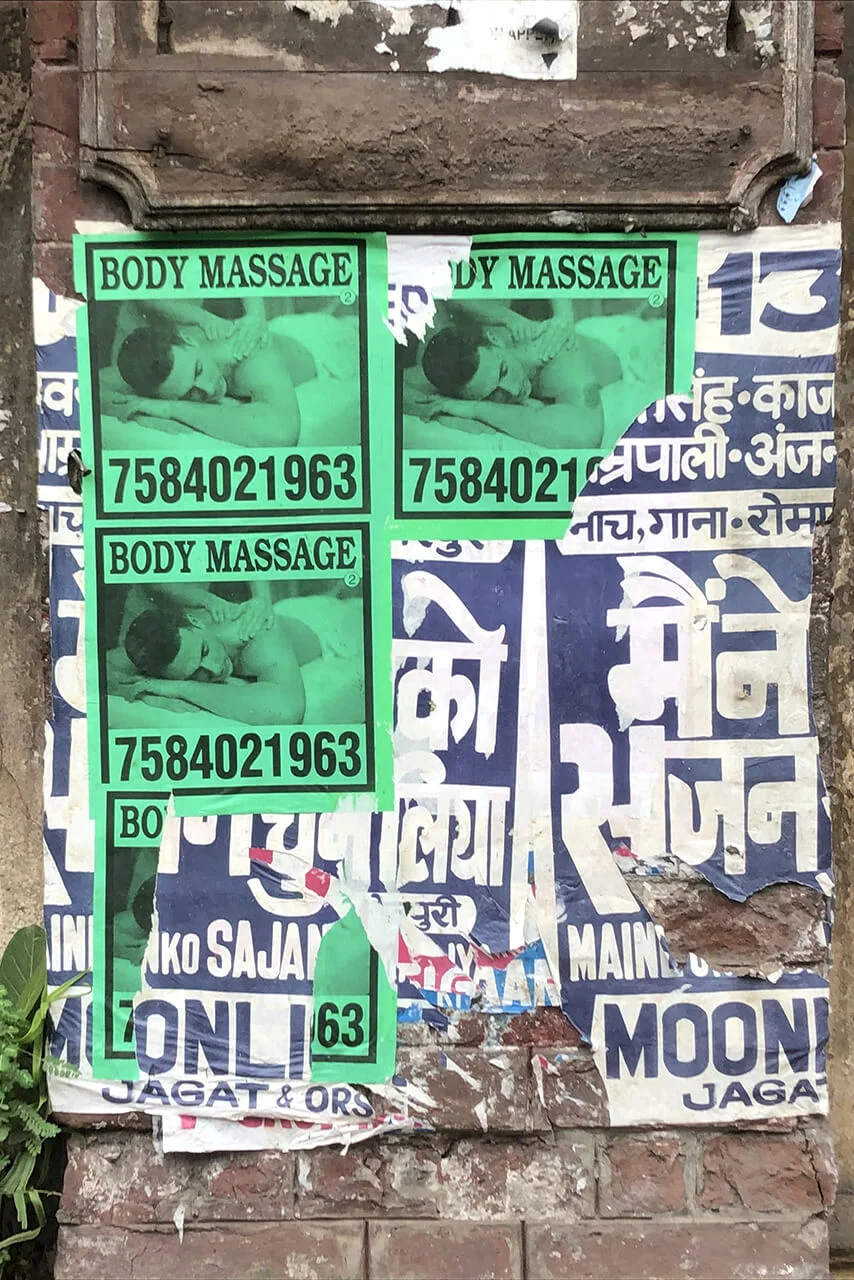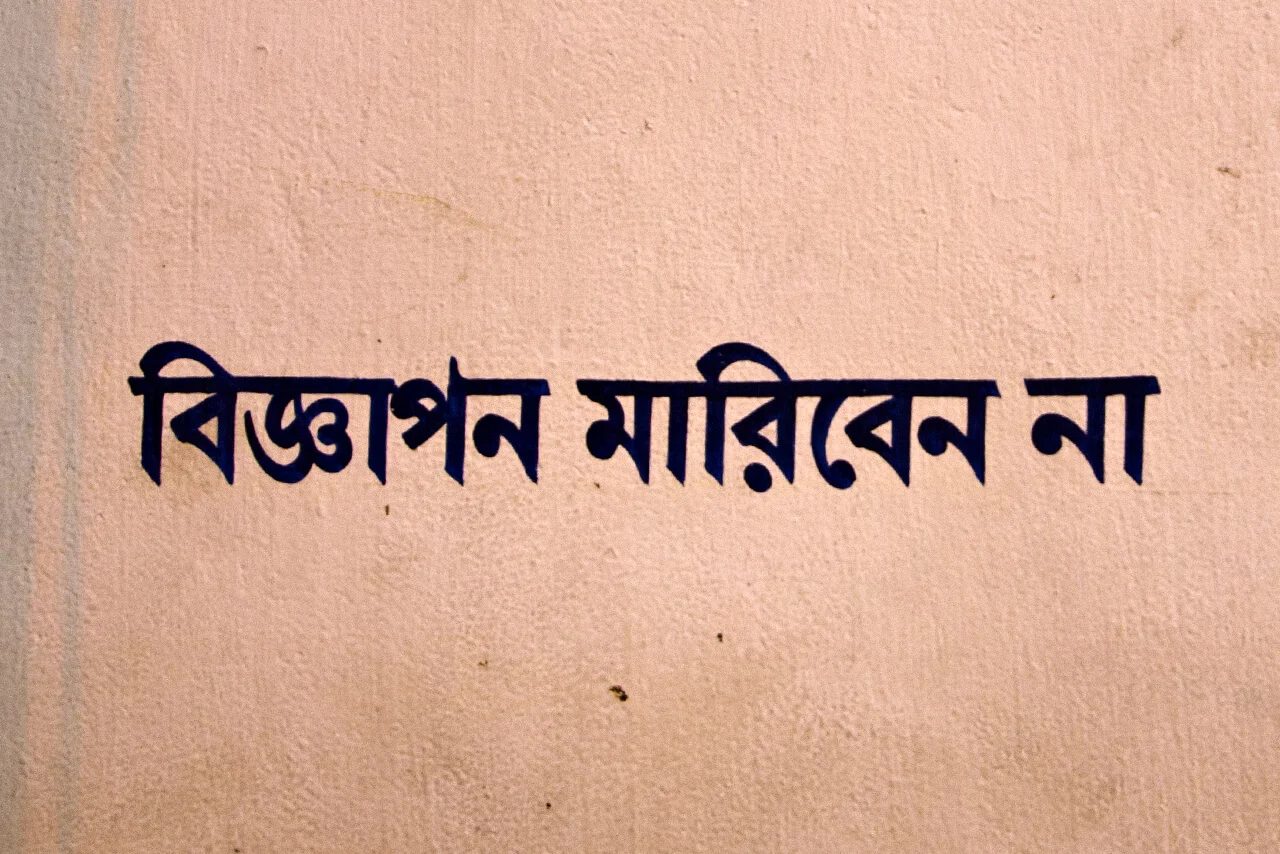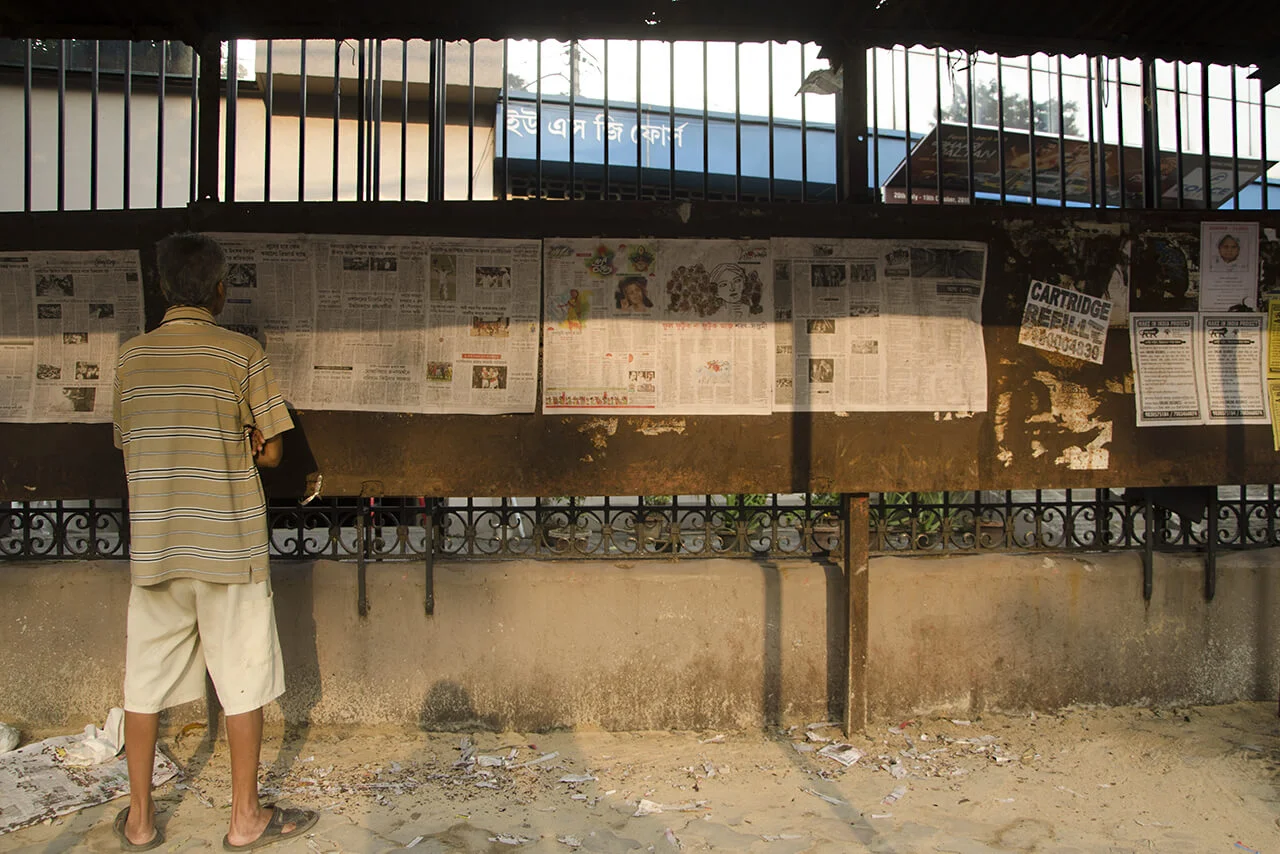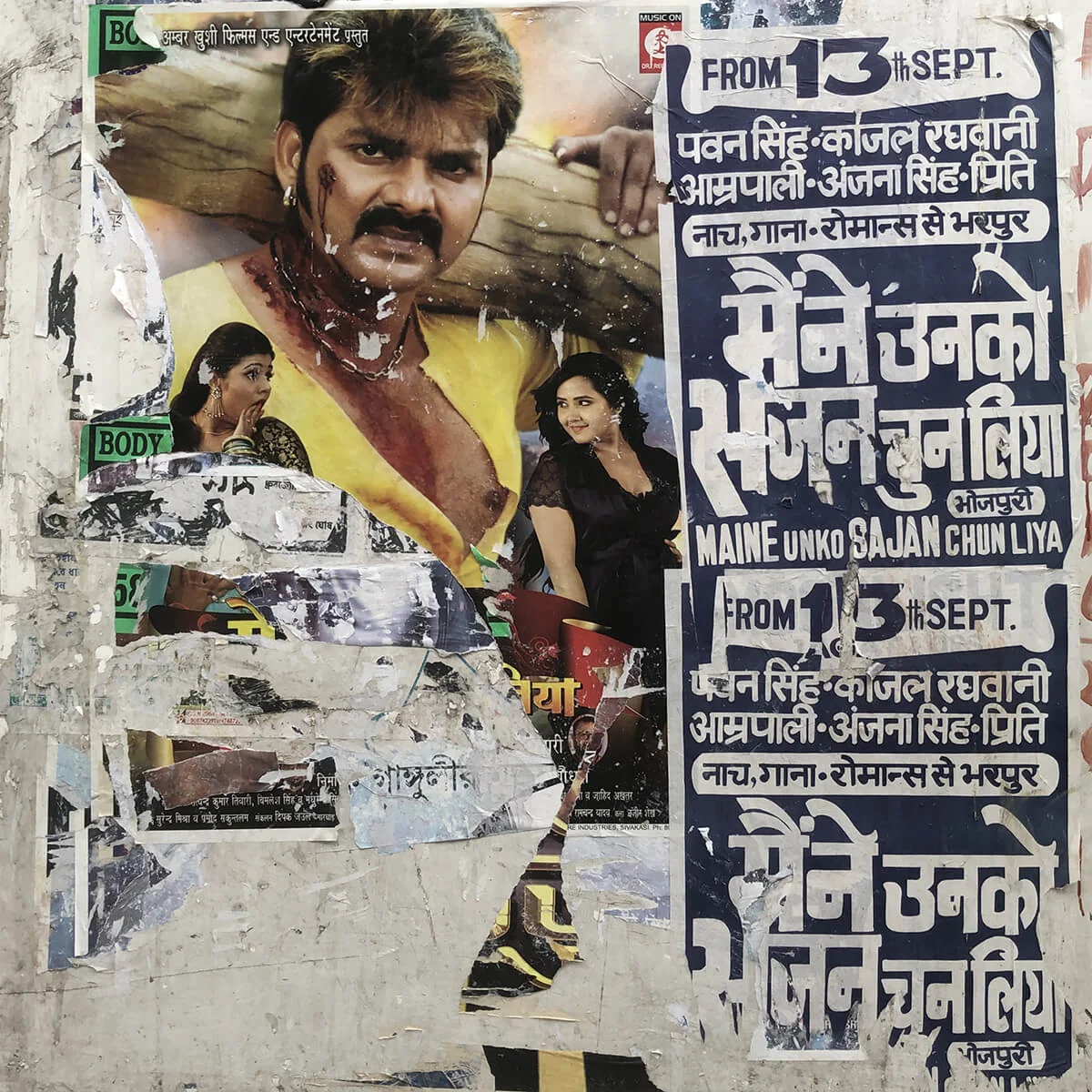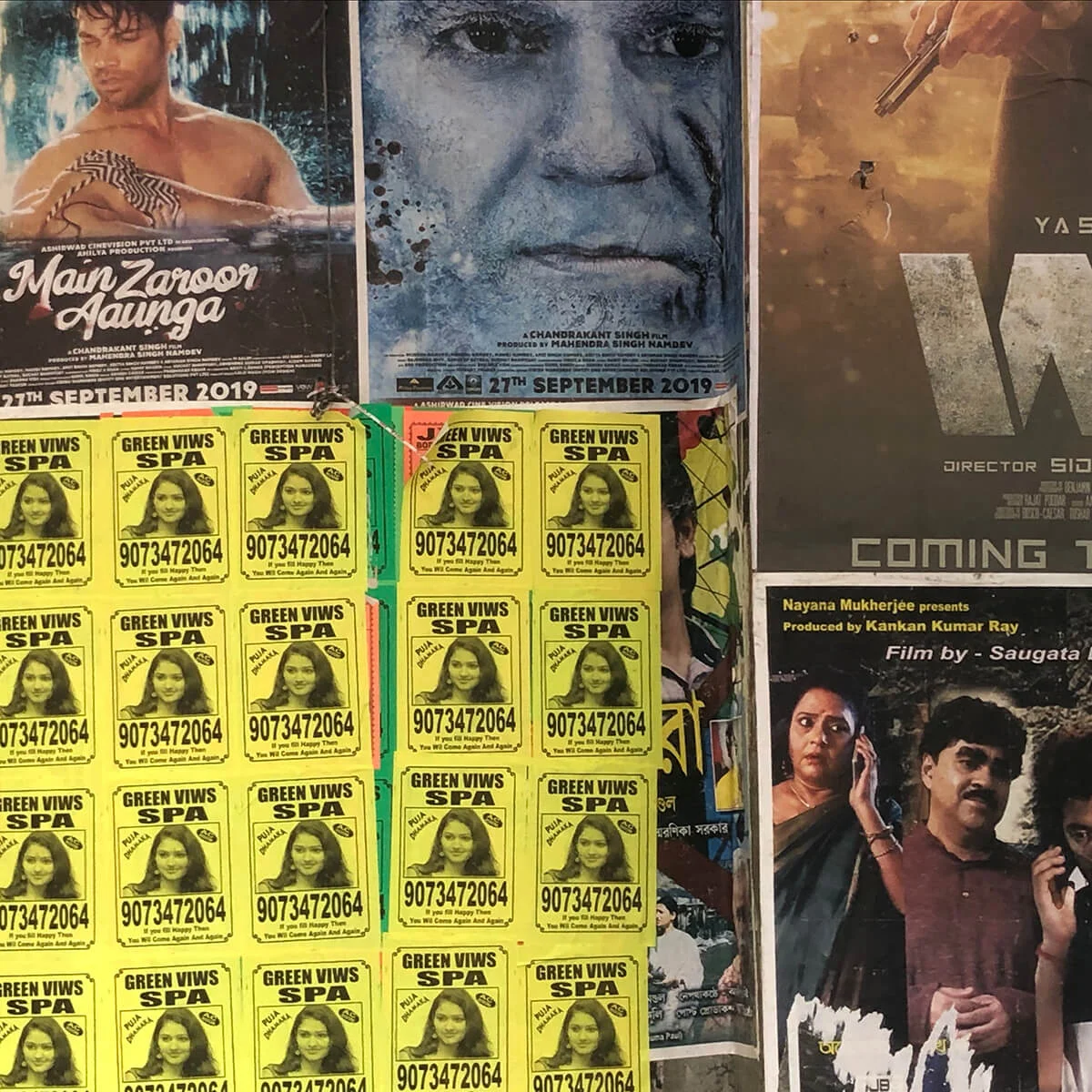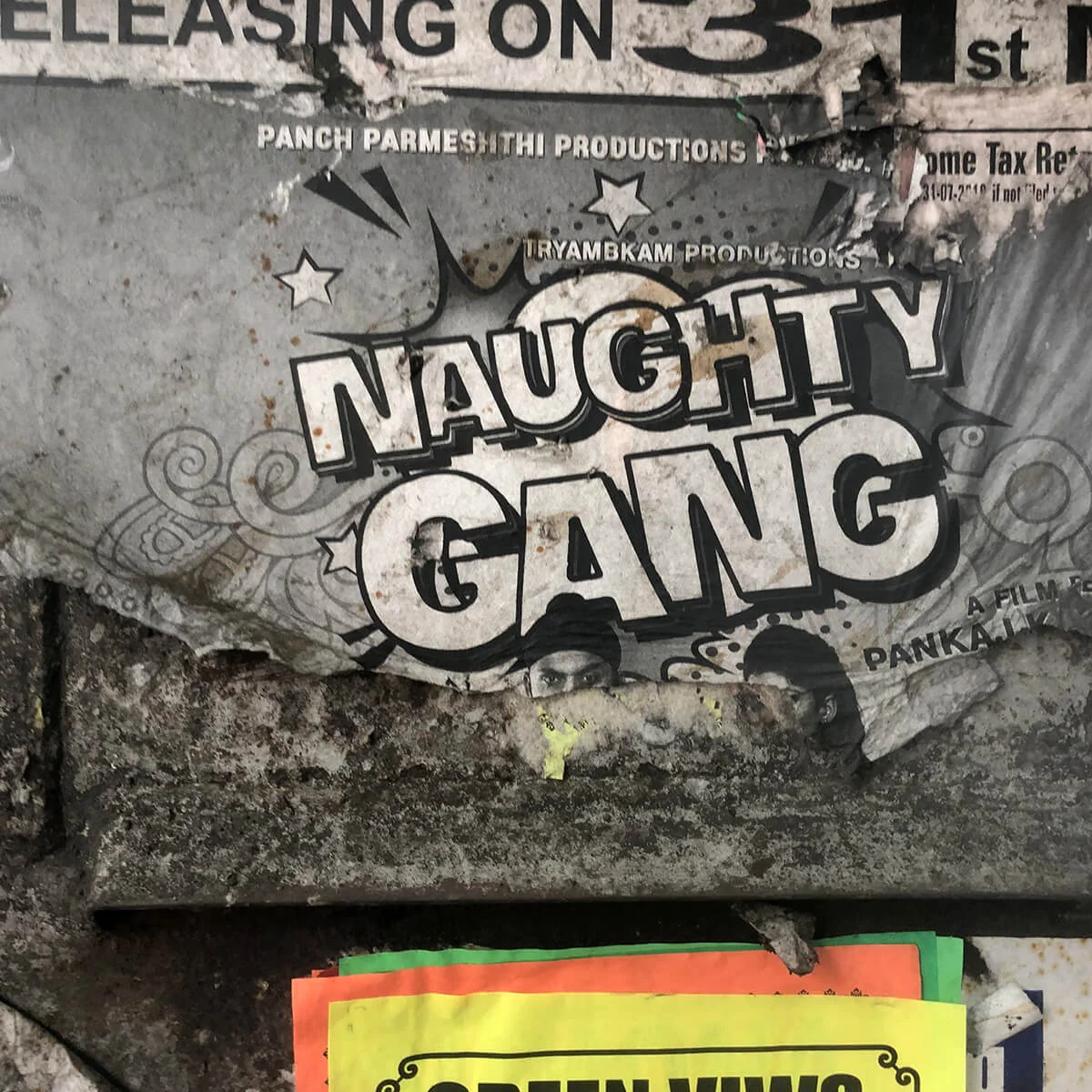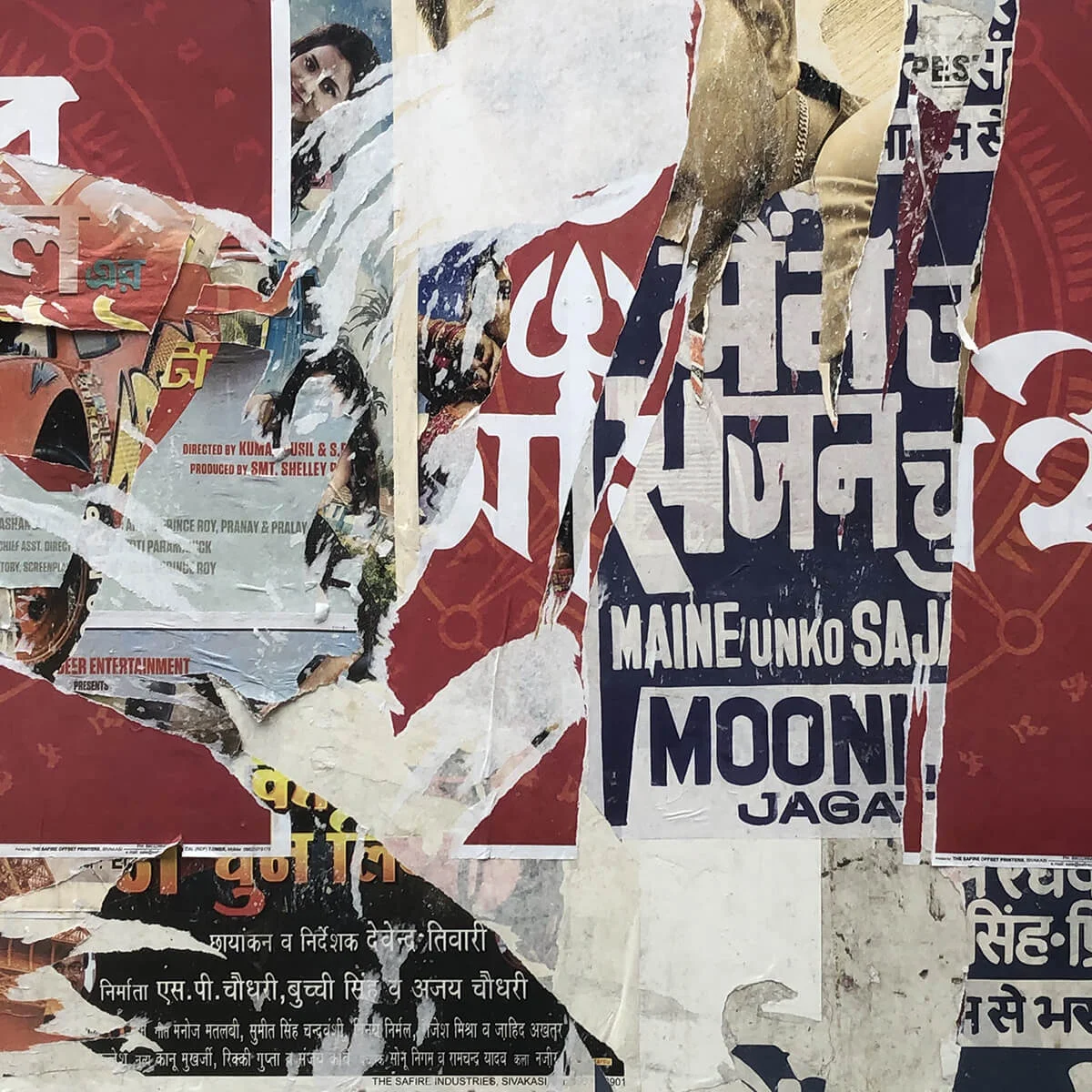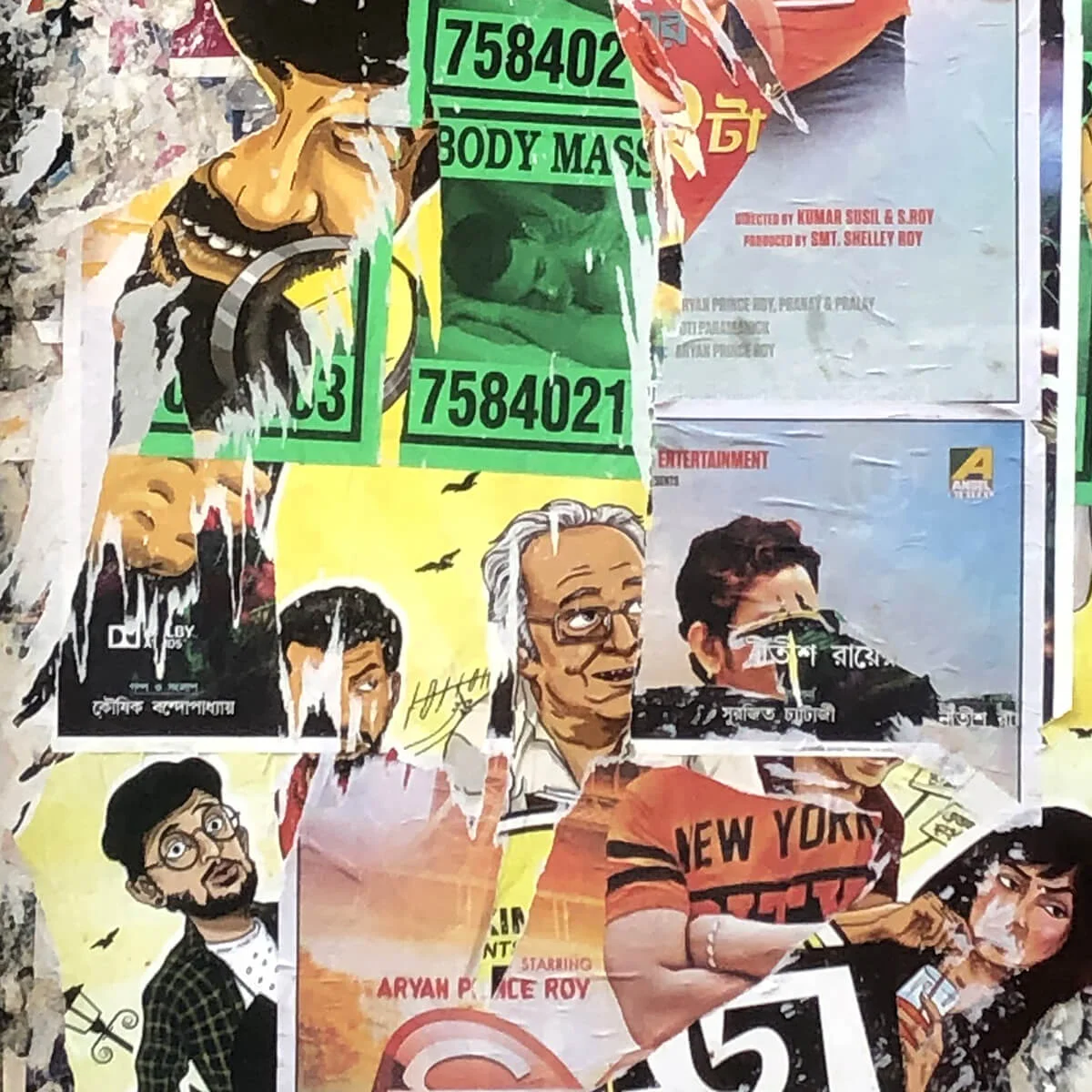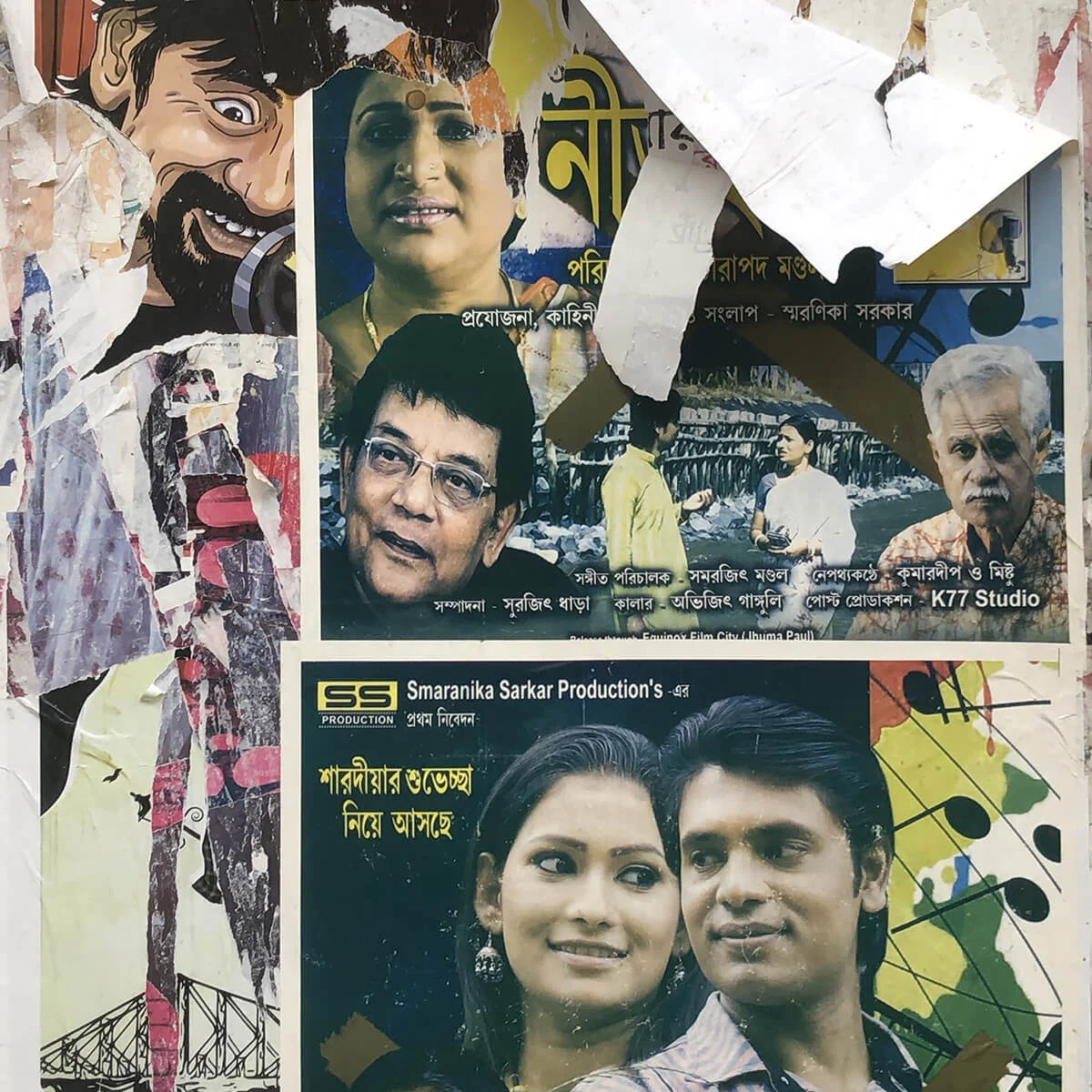
Kolkata, the capital of Bengal, has long been regarded as one of India’s intellectual centres. Its inhabitants are often noted for their engagement with politics and their enduring affinity for art and literature, a disposition reflected in the city’s rich and varied cultural life.
This sensibility extends into the urban fabric itself: walls throughout the city are densely layered with political slogans, local advertisements, film posters, and other public messages. These overlapping strata of ephemeral communication form a constantly shifting visual landscape, whose accumulations can at times appear almost poetic.